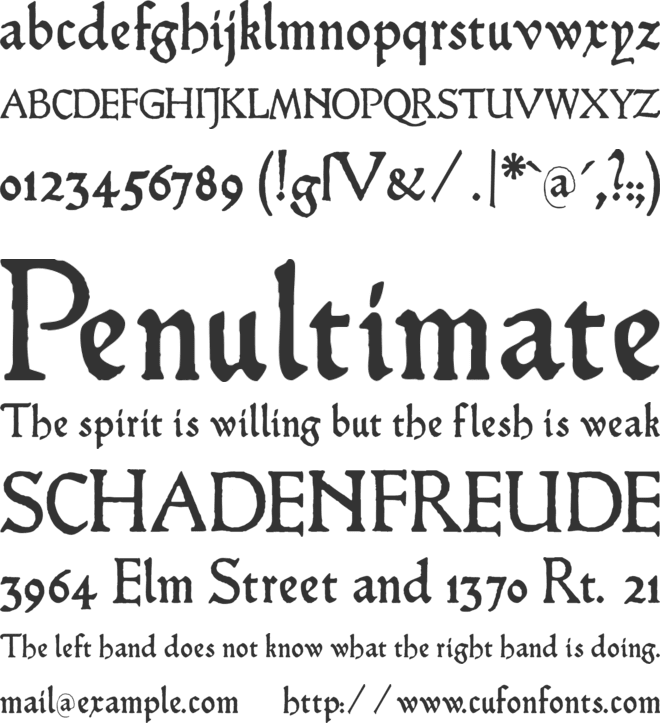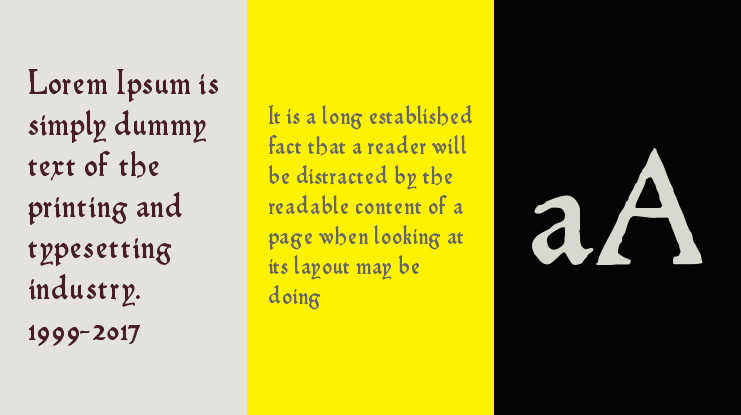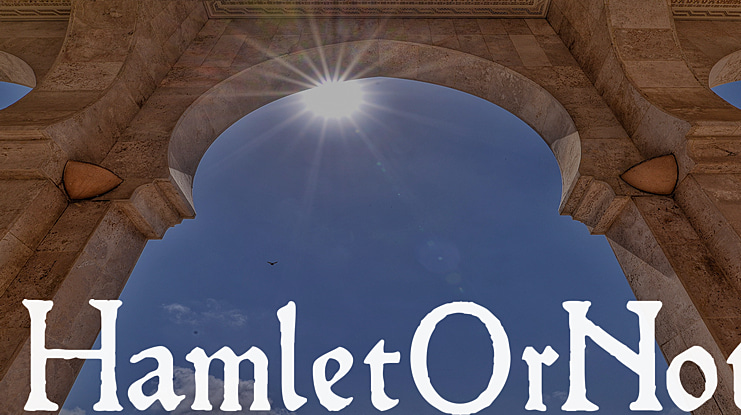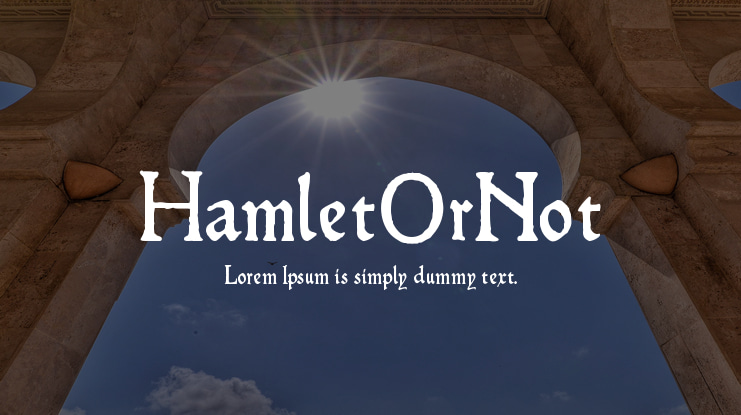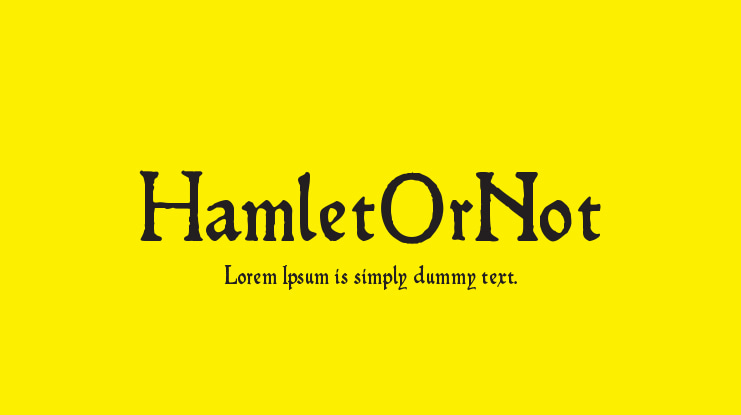
HamletOrNot Font
Well, this font isn't really Blackletter, but it has a certain historical touch, so it is welcome on these pages. The typeface Hamlet was designed by Edward Johnston for a Shakespeare edition, Cranach Press, 1929. The award winning book Hamlet was considered “the most beautiful book of the year 1930”. HamletOrNot – digitized by Manfred Klein & CybaPee.